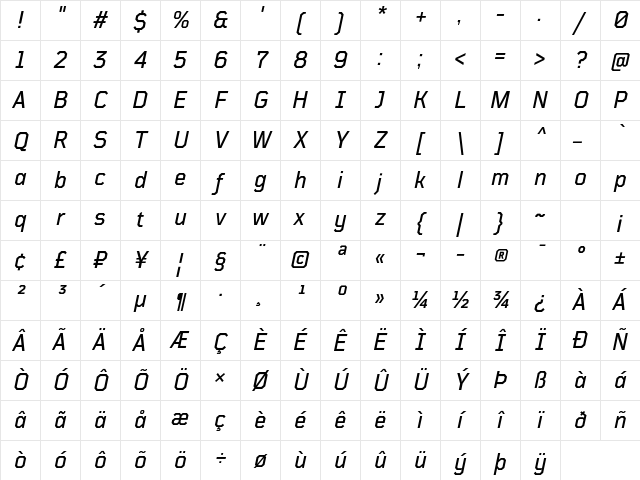
TT Mussels Trl Medium Italic Free Font
TT Mussels Trl Medium Italic
Designer: TypeType
Design Context for TT Mussels Trl
TT Mussels Trl is a composed and adaptable typeface that performs quietly and consistently across a wide range of design contexts. The slanted form adds forward momentum and visual energy.
Pro Tip: Use TT Mussels Trl for emphasis, pull quotes, and subheadings where its slanted energy can add rhythm to the layout.